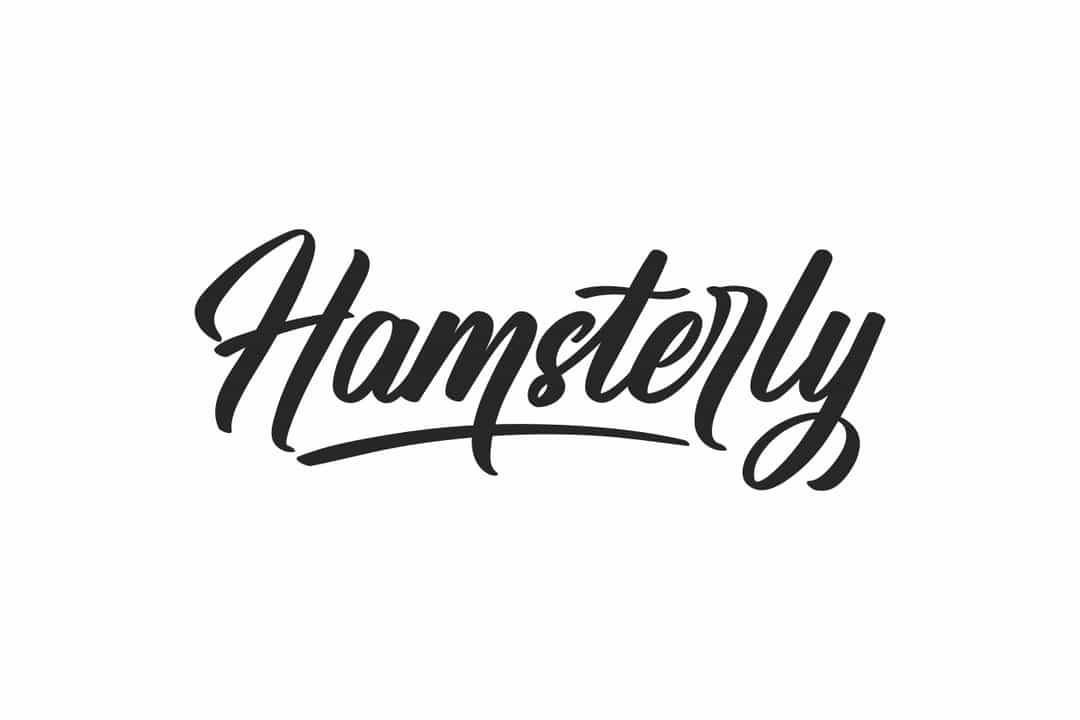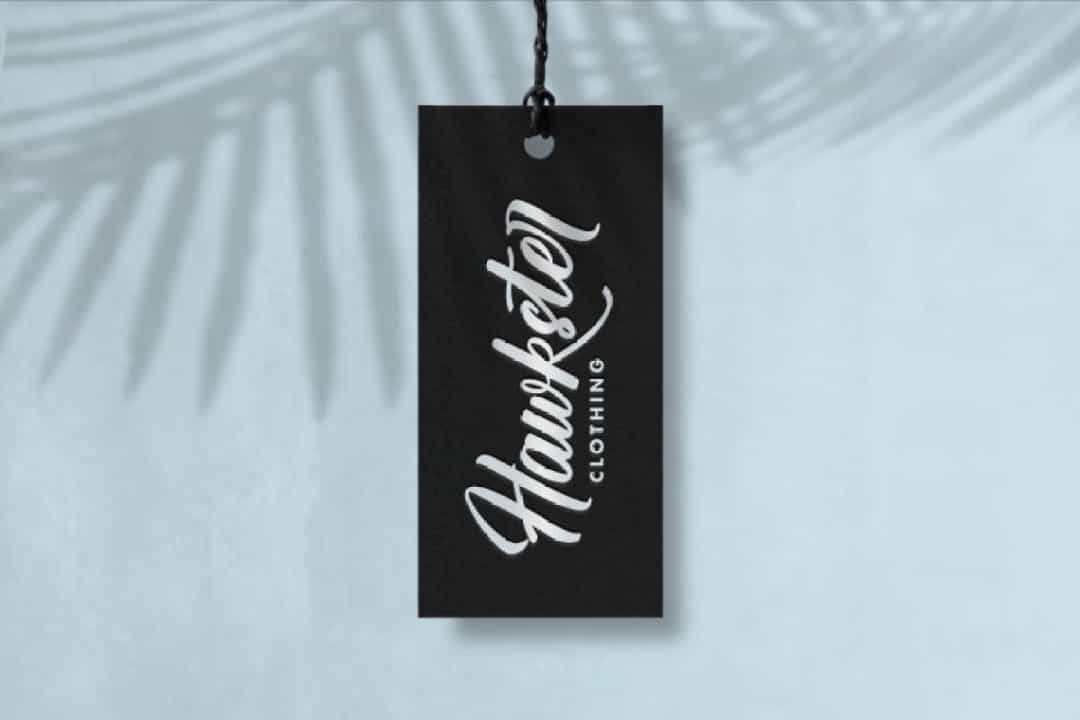
Hamsterly font will be appropriate for projects (that need an extended license), these include business, logos, stationery, business card flyers, signage, brochures, and flyers. The gold elegance, chicness, and classic brush design of Hamsterly font are ideal for weddings, events, real estate, architects, law firms, florist, makeup artists, gardening, music, hotels, travels, etc..